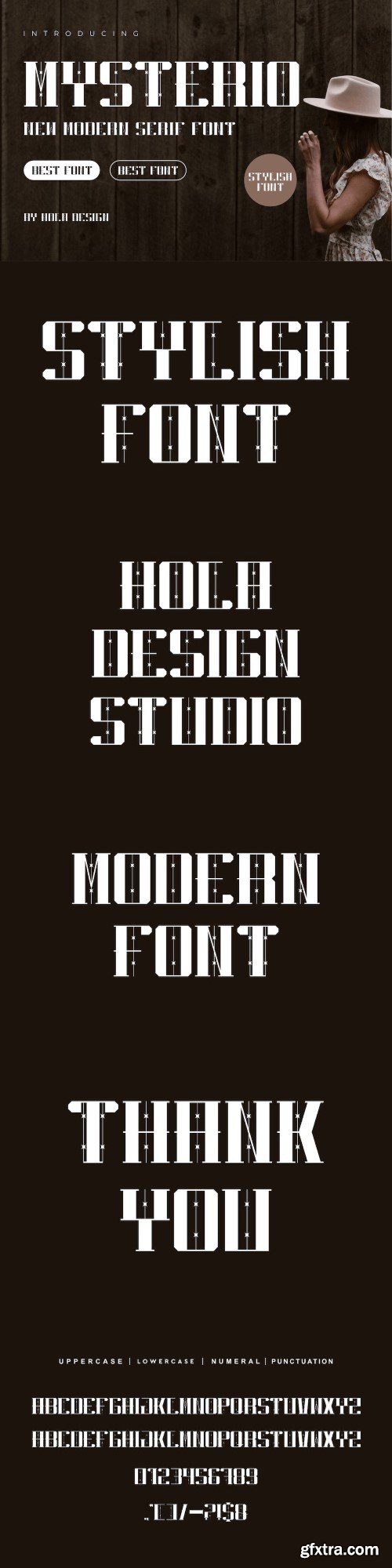
神秘字体
Mysterio Font is unique . Ready to use for your design like labeling, movie sceen, poster, movie title, gigs, album covers, logos, and much more.